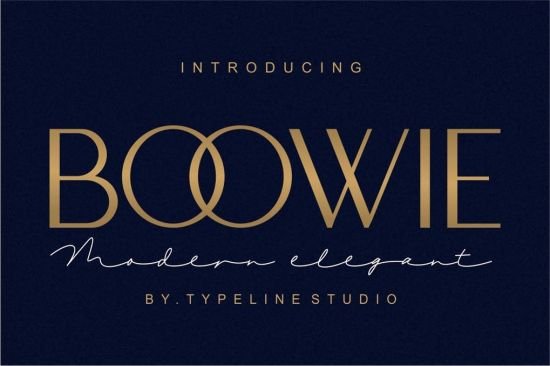
Boowie is a minimaist font sans serif regular and italic version.Boowie perfect use for logos, print, collage, body text, and more! It looks minimalist a really cool modern-meets-vintage look to any piece.